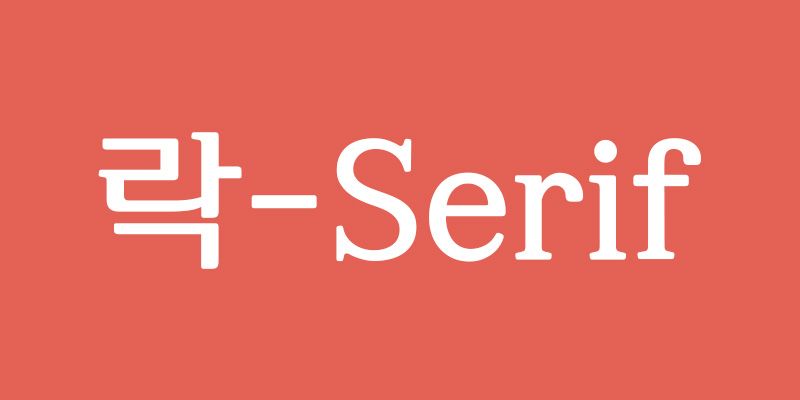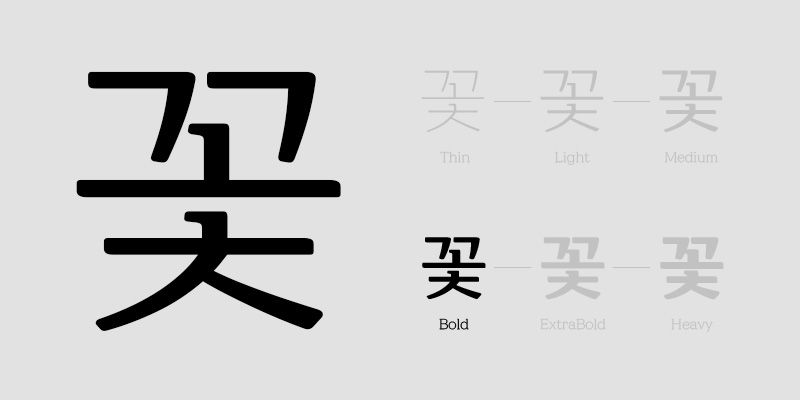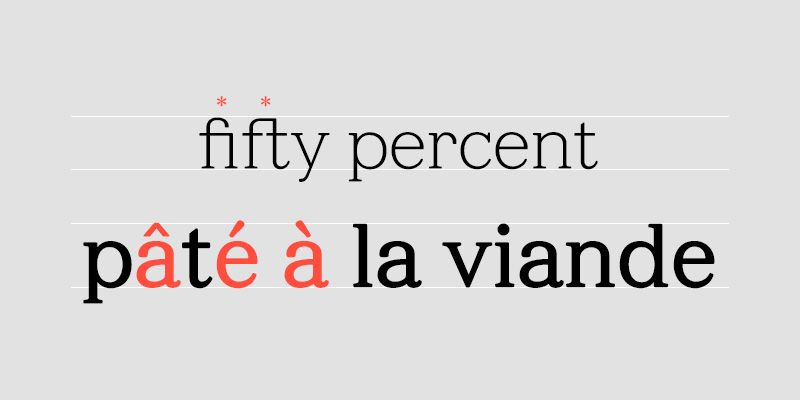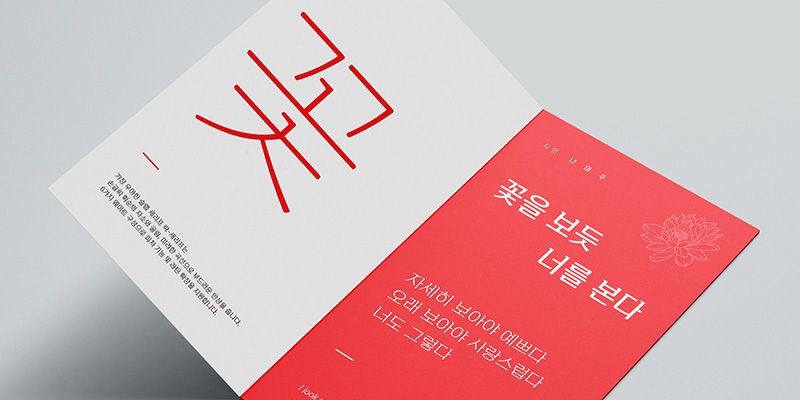
RixRak-Serif is a font that features a strong yet sophisticated image through a full structure and slab serif. Its stroke orders reflect handwritten characters, and the corners are curved in a familiar and stable manner. The strong bone structure and elegant strokes give the font a neutral feel that can be applied to a wide variety of purposes.